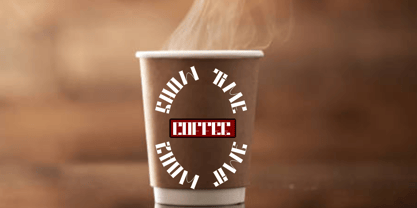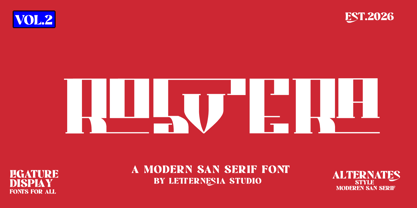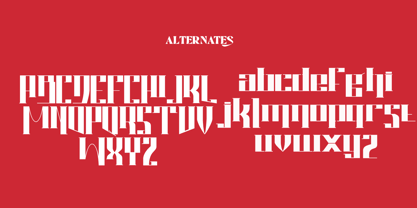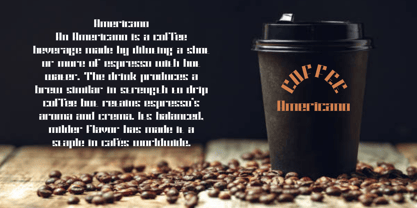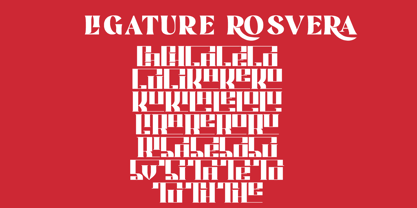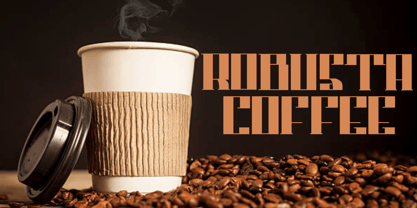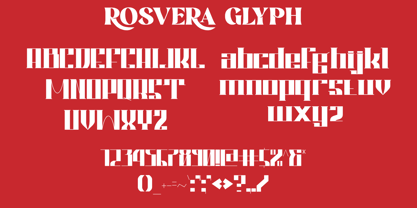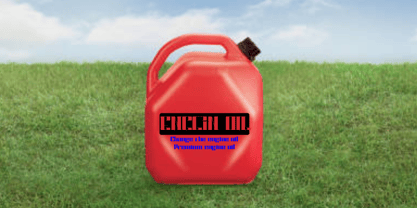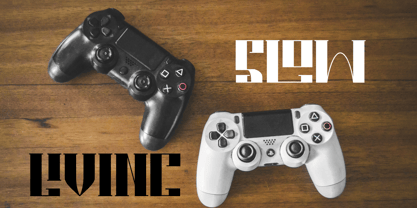
Rosvera
Die Schriftfamilie Rosvera wurde von Ta Siyo entworfen und von Letternesia studio veröffentlicht. Rosvera enthält 2 Stile und Familienpaketoptionen. Mehr über diese Familie
Rosvera is an elegant serif display font that combines luxury, modern style, and timeless sophistication. Featuring artistic letterforms and strong serif details, this font is perfect for branding, logos, headlines, fashion projects, cosmetics, editorials, invitations, posters, and premium social media content.
Rosvera is designed to create an exclusive and stylish appearance while maintaining excellent readability and visual impact. The blend of classic and contemporary aesthetics makes this font ideal for a wide range of creative design projects.